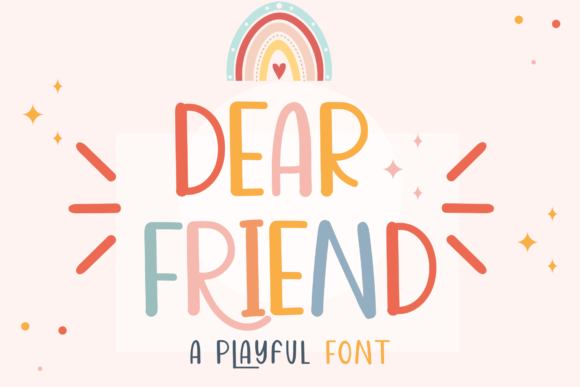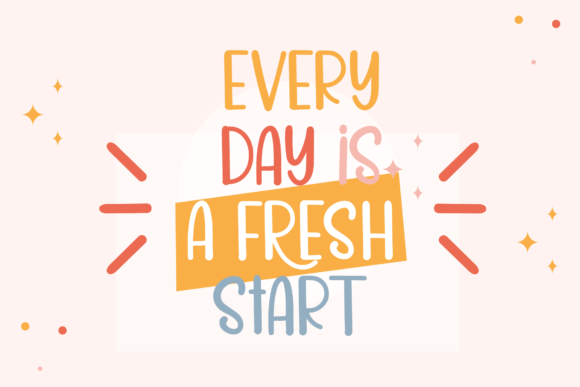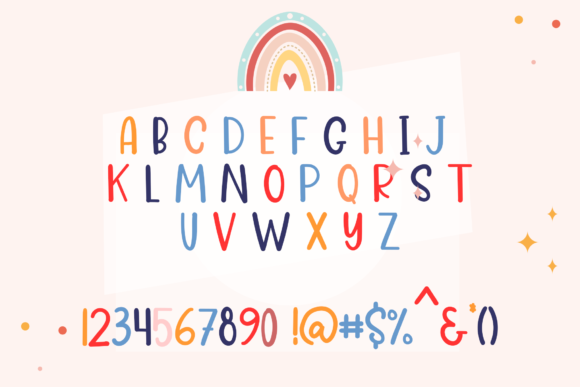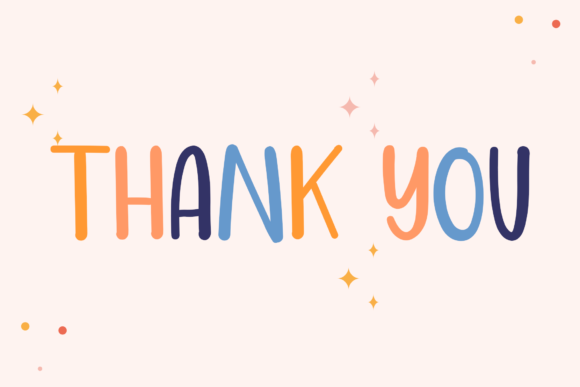
Dear Friend Font: A Cute Handwritten Font for Cricut & DIY Projects
About the Dear Friend Font
Let us introduce you to Dear Friend Font, where timeless design meets modern craftsmanship. Dear Friend is a playful and cute handwritten font. It is perfect for children themed designs, especially when combined with bright colors.
Its playful nature makes it ideal for children’s books, greeting cards, and branding for businesses targeting a young audience. It also works well in short, impactful headlines or social media posts where its friendly charm can shine. However, its informal style is unsuitable for large blocks of text or applications requiring high readability, such as body copy or user interfaces.
Dear Friend pairs beautifully with clean sans-serif fonts like Open Sans for a balanced contrast of playful and legible elements, or with a geometric sans-serif for a modern, slightly quirky feel. A simple serif like Merriweather could add a touch of classic elegance, providing stability to the font’s hand-drawn energy.
The overall personality of Dear Friend is undeniably cheerful and approachable. Its slightly irregular forms convey a sense of warmth and handmade authenticity, making it perfect for brands that wish to project approachability and a friendly, personal touch.